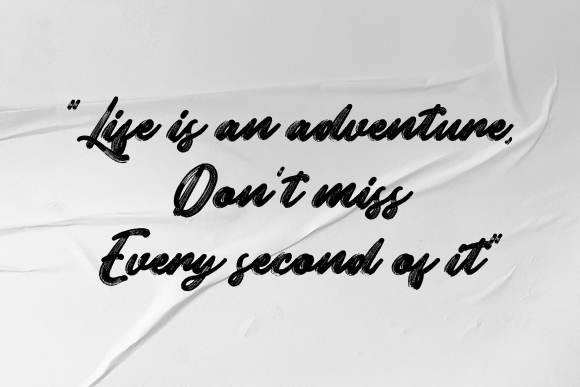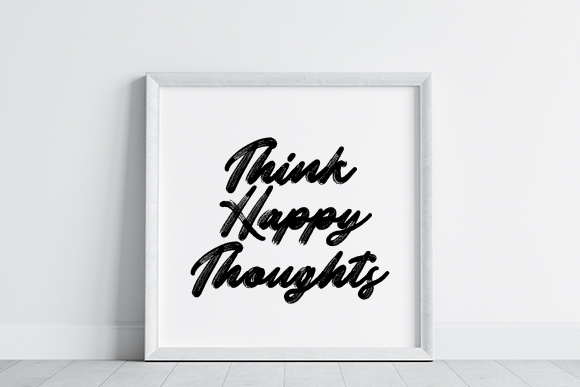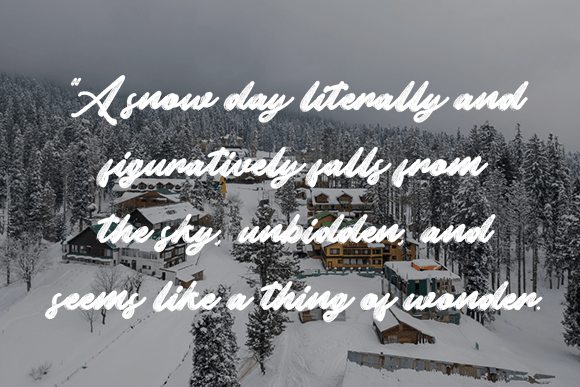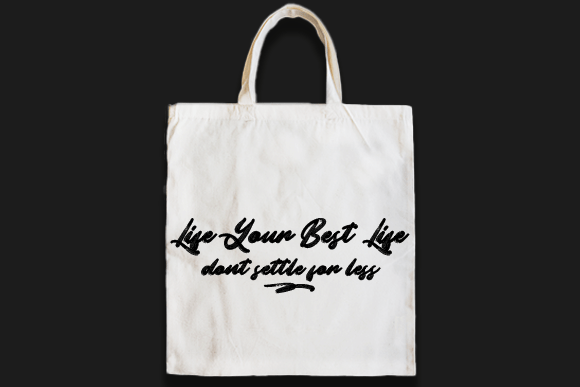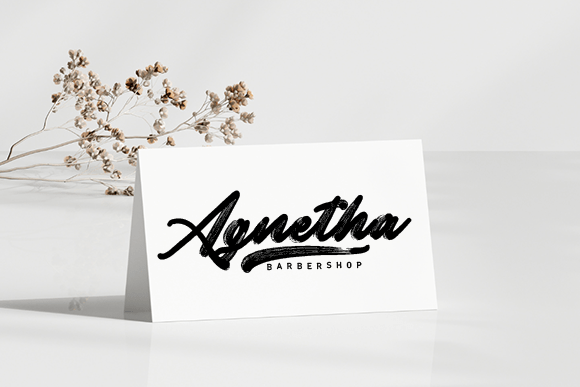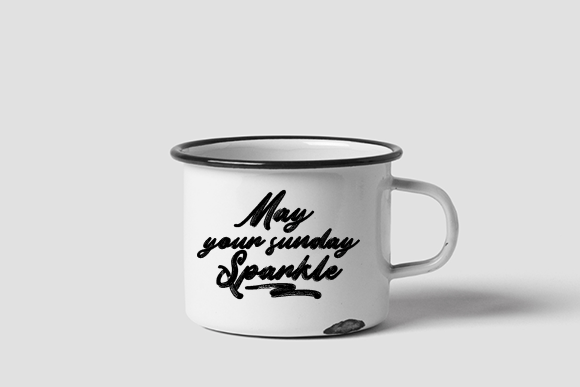
Unleash the Artistic Brilliance with Dead Sonata Font
In the realm of typography, few fonts have managed to capture the essence of elegance and charm as effectively as the Dead Sonata Font. This decisively graceful high brush script font has been specifically crafted for artists, designers, and crafters who seek to infuse their work with a touch of sophistication and refinement. With its unique blend of charisma and artistic flair, Dead Sonata is poised to revolutionize the way you approach your creative projects.
The Captivating Charm of Dead Sonata
Dead Sonata’s captivating charm lies in its ability to bring an enchanting touch to a wide range of artistic ventures. Whether you’re working on powerful advertisements, influential social media posts, or unforgettable quotes and graphics, this font is designed to elevate your work to new heights. Its exclusive glyphs ooze refined elegance, making it the perfect choice for designers and crafters who seek to create visually stunning pieces that leave a lasting impression.
Elevate Your Artistic Brilliance with Every Brushstroke
One of the standout features of Dead Sonata is its ability to elevate the artistic brilliance of your work with every brushstroke. The font’s high brush script style gives it a distinctive, hand-crafted feel that is sure to captivate your audience. Whether you’re creating a bold and eye-catching advertisement or a delicate and intricate graphic, Dead Sonata’s refined elegance and sophisticated charm are sure to shine through.
Perfect for a Wide Range of Artistic Ventures
Dead Sonata’s versatility is one of its most compelling features. This font is perfect for a wide range of artistic ventures, including:
- Powerful advertisements: Use Dead Sonata to create bold and eye-catching ads that capture the attention of your target audience.
- Influential social media posts: Elevate your social media presence with Dead Sonata’s refined elegance and sophisticated charm.
- Unforgettable quotes and graphics: Use Dead Sonata to create stunning quotes and graphics that leave a lasting impression on your audience.
What Sets Dead Sonata Apart
So, what sets Dead Sonata apart from other fonts? Here are just a few of the key features that make this font truly unique:
- Decisively graceful high brush script style: Dead Sonata’s high brush script style gives it a distinctive, hand-crafted feel that is sure to captivate your audience.
- Exclusive glyphs: Dead Sonata’s exclusive glyphs ooze refined elegance, making it the perfect choice for designers and crafters who seek to create visually stunning pieces.
- Charismatic charm: Dead Sonata’s charismatic charm is sure to bring an enchanting touch to your artistic ventures.
Tips for Using Dead Sonata Effectively
To get the most out of Dead Sonata, here are a few tips to keep in mind:
- Use it sparingly: Dead Sonata’s bold and eye-catching style can be overwhelming if used too much. Use it sparingly to create a lasting impression.
- Pair it with complementary fonts: Dead Sonata pairs well with a range of complementary fonts. Experiment with different pairings to find the one that works best for your project.
- Experiment with different colors: Dead Sonata’s refined elegance and sophisticated charm can be further enhanced with the right color scheme. Experiment with different colors to find the one that works best for your project.
In conclusion, Dead Sonata Font is a game-changer for designers and crafters who seek to infuse their work with a touch of sophistication and refinement. With its captivating charm, exclusive glyphs, and refined elegance, this font is poised to revolutionize the way you approach your creative projects. Whether you’re working on powerful advertisements, influential social media posts, or unforgettable quotes and graphics, Dead Sonata is the perfect choice for anyone seeking to elevate their artistic brilliance.